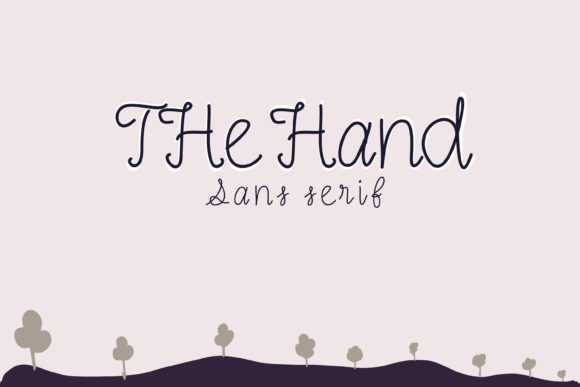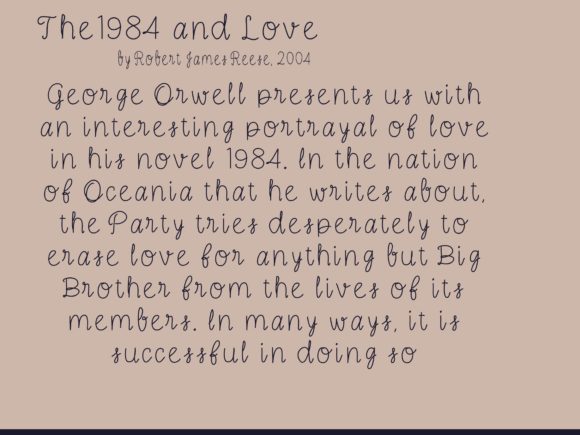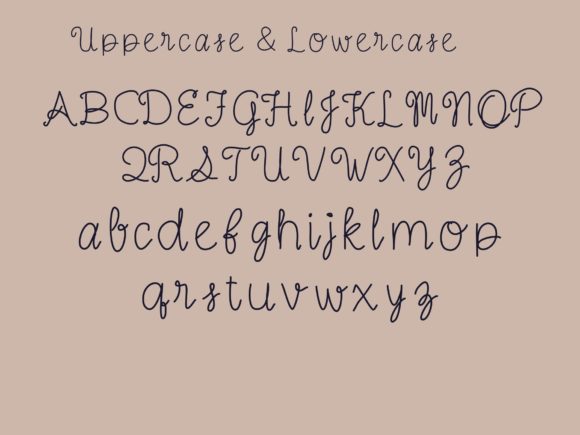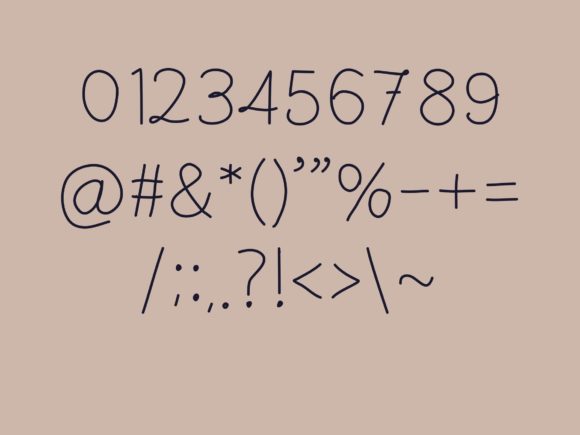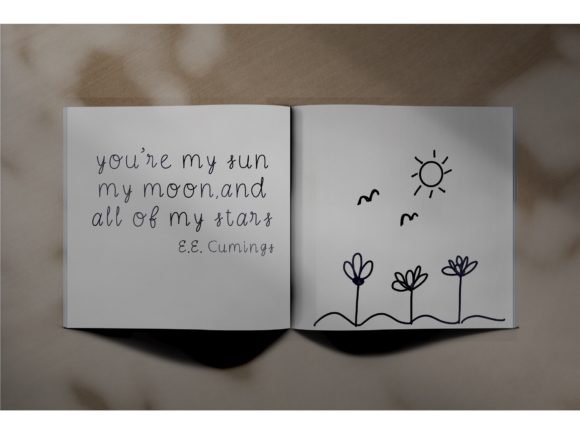
The Hand Font
About The Hand Font
The Hand is a sweet, all round and flexible handwritten font. Warm and delicate, this font will turn each of your project ideas into real works of art. Have fun with this beautiful font and explore its endless variations.